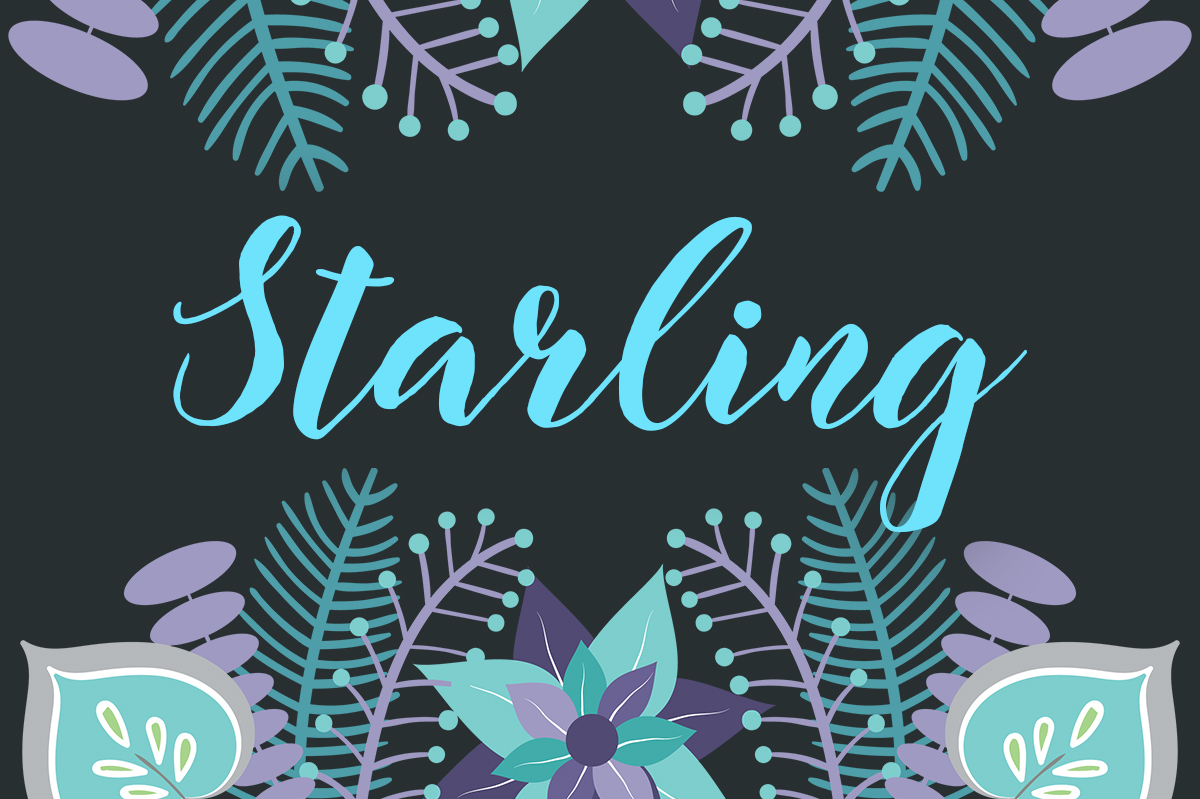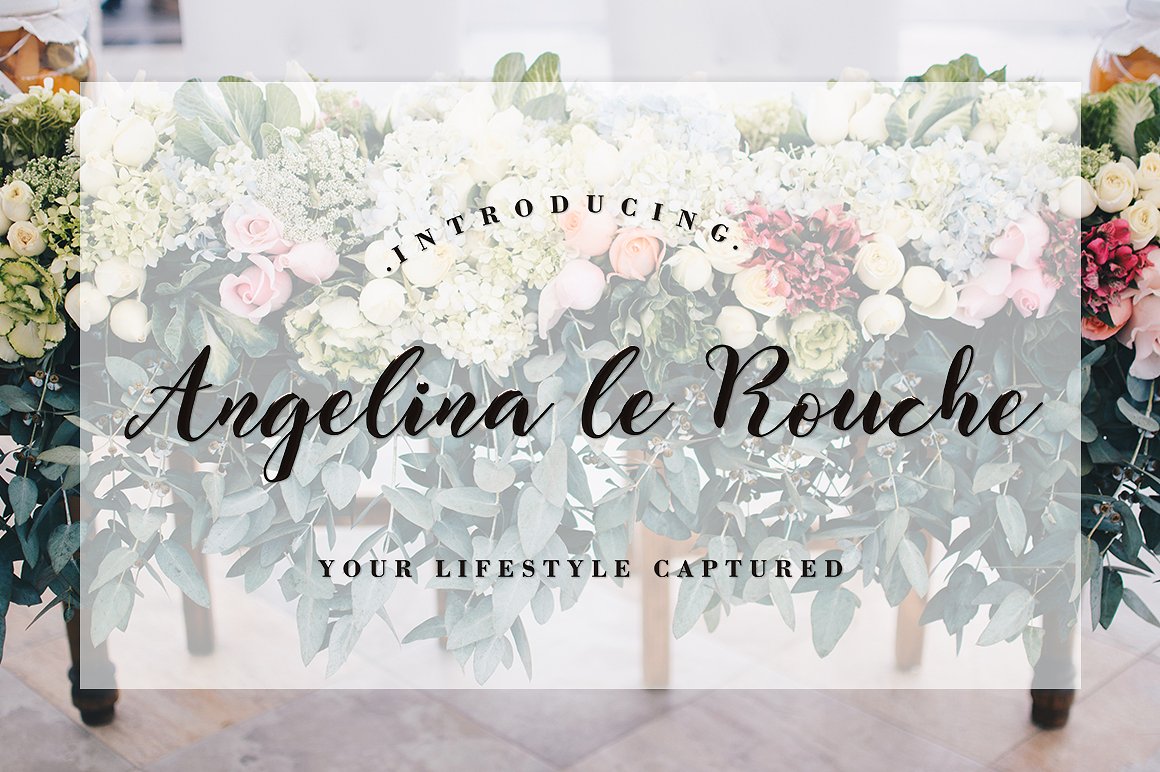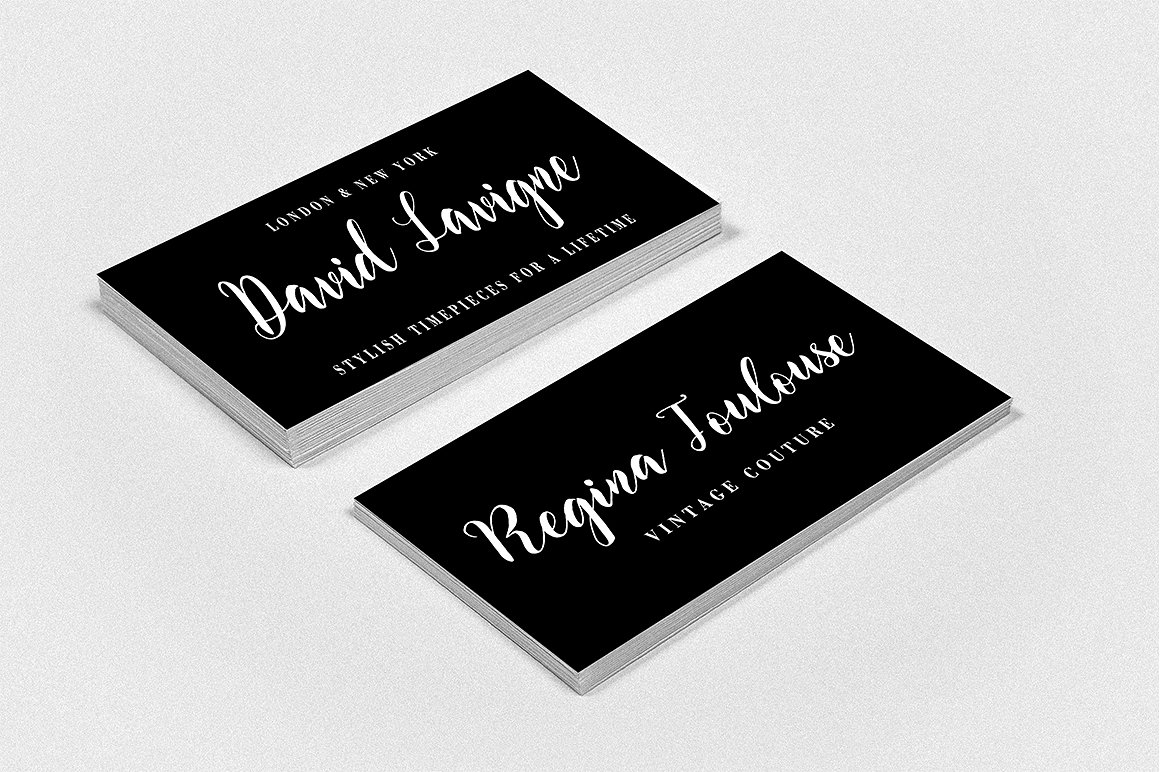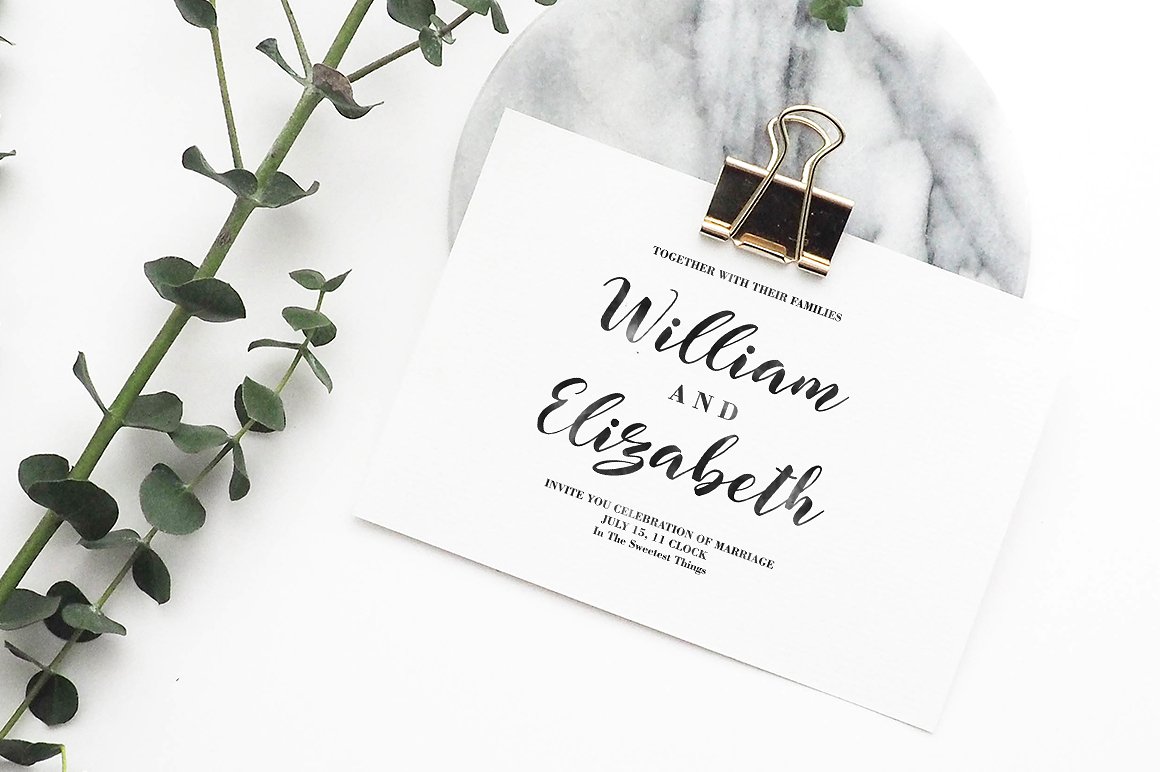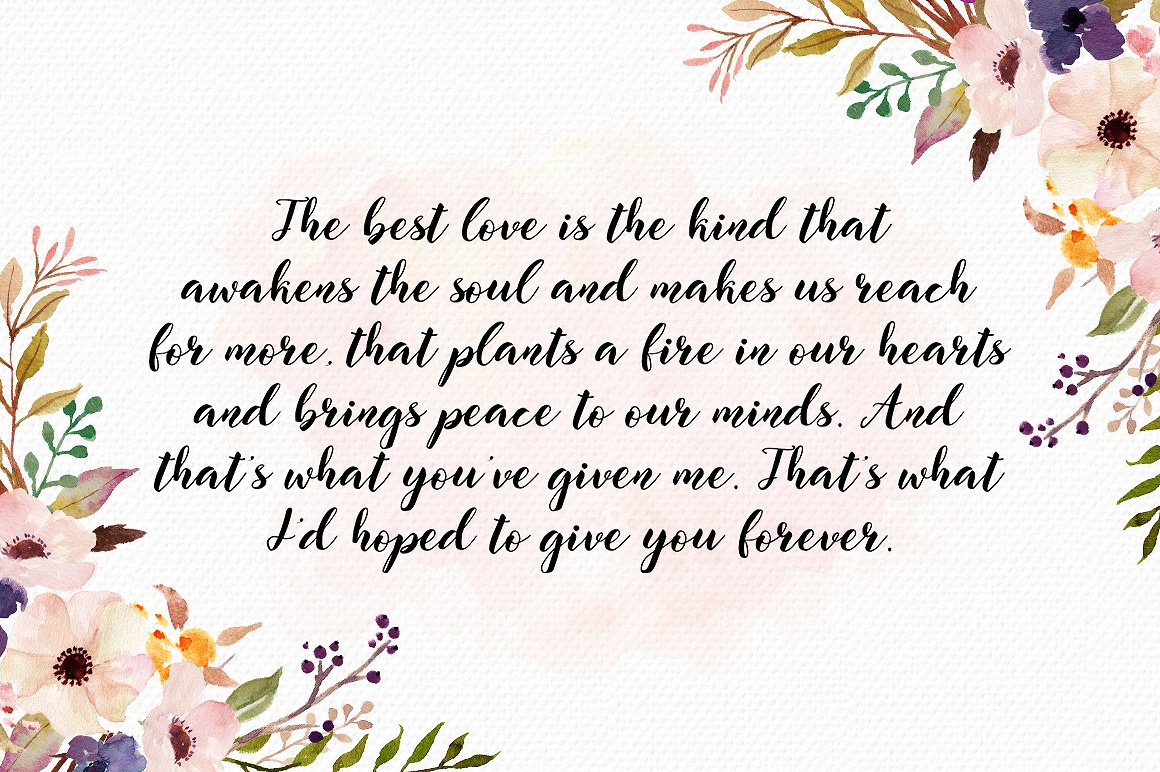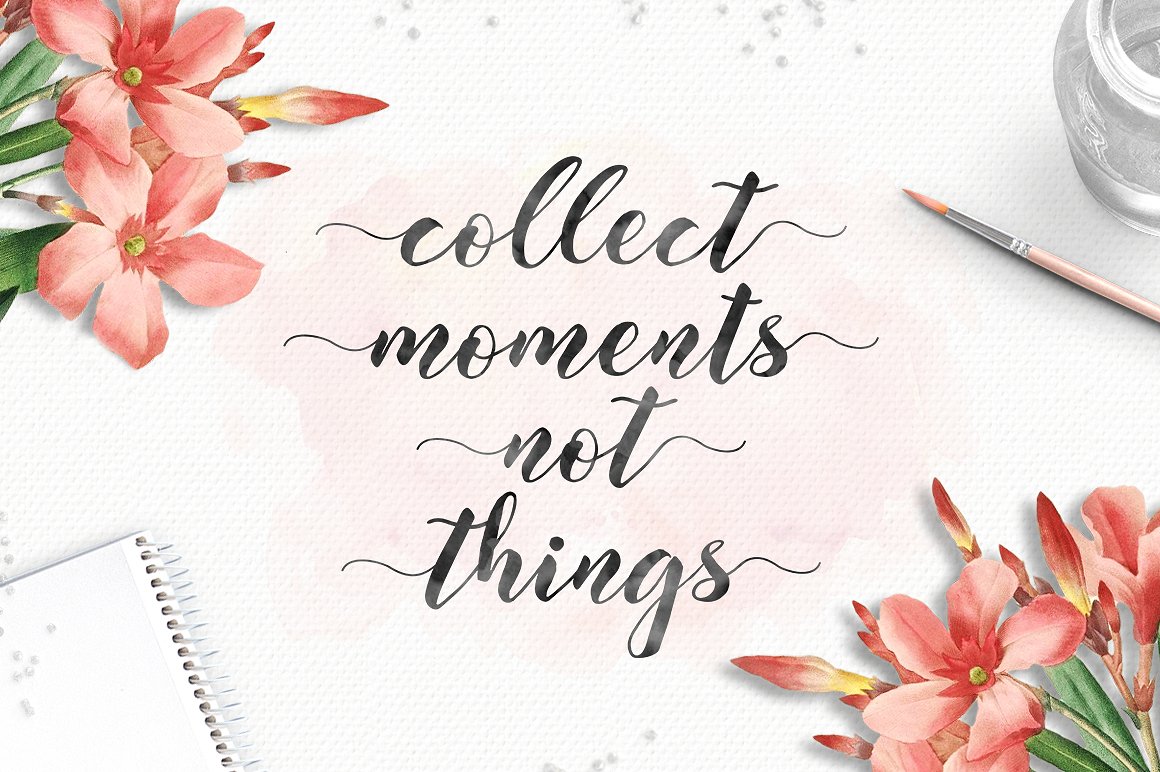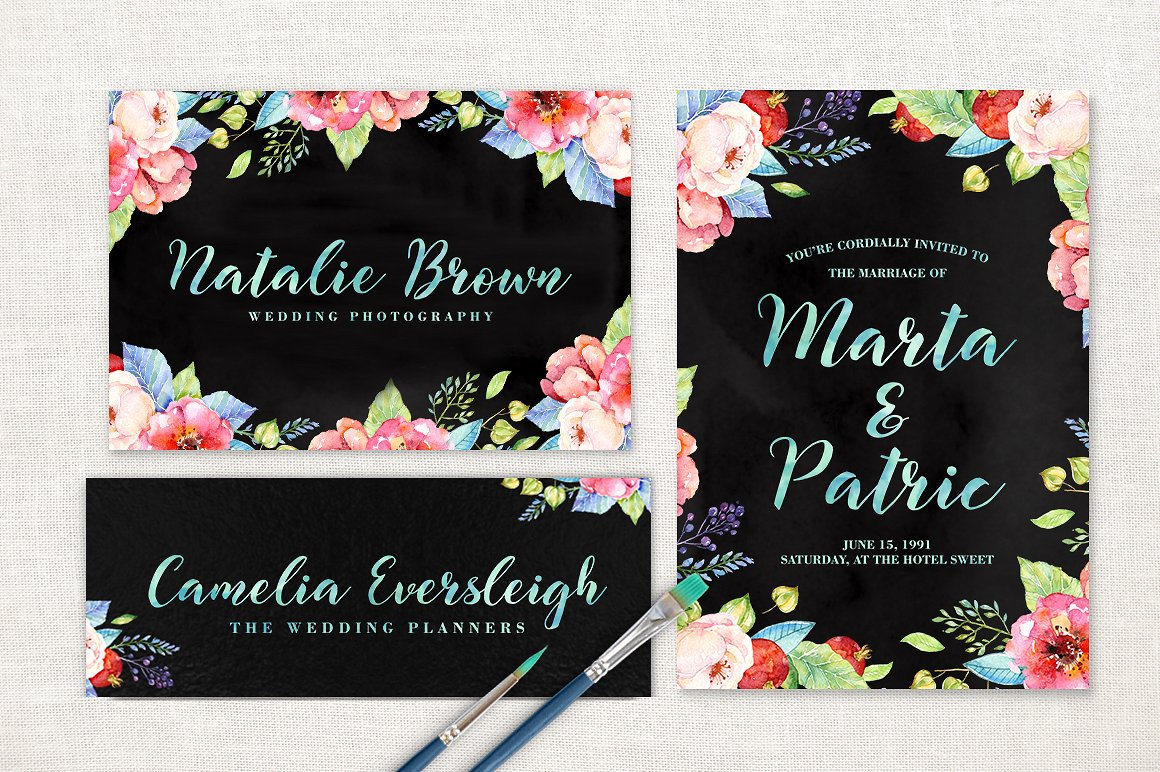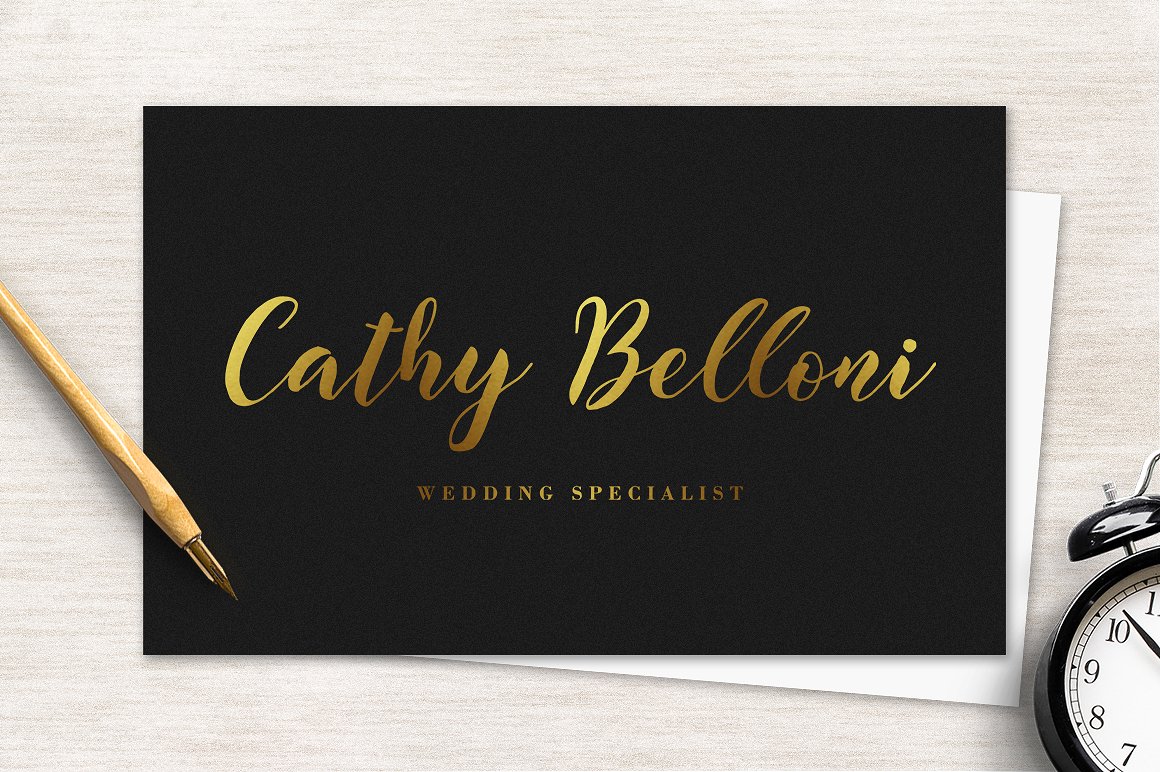
Starling Font
About Starling Font
The Starling font is a hand-brushed modern calligraphy script font, created with a combination of a pen and a brush.
It has a flowing baseline and features lowercase alternates. The letters where first painted on paper. After they where scanned, vectorized and carefully polished to create a smooth looking font.